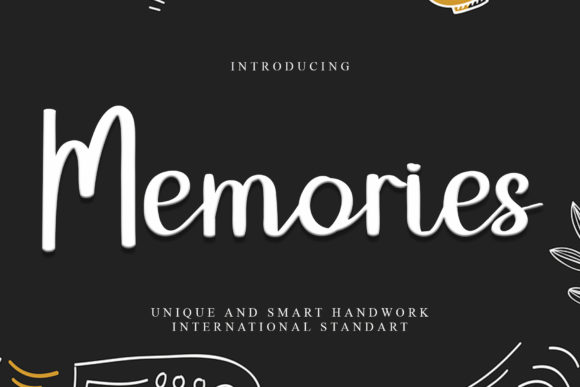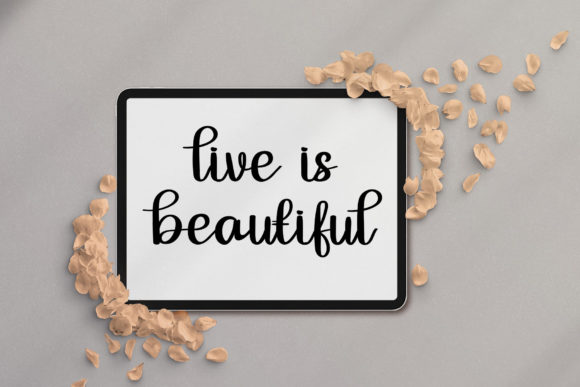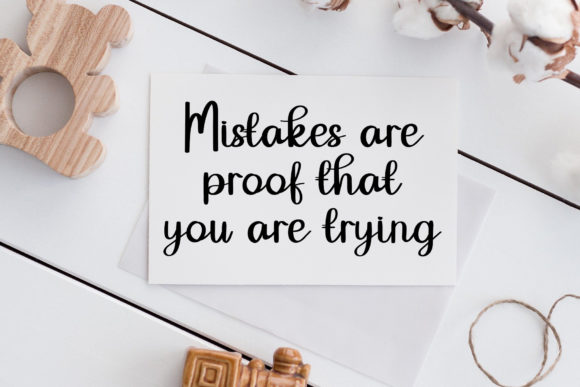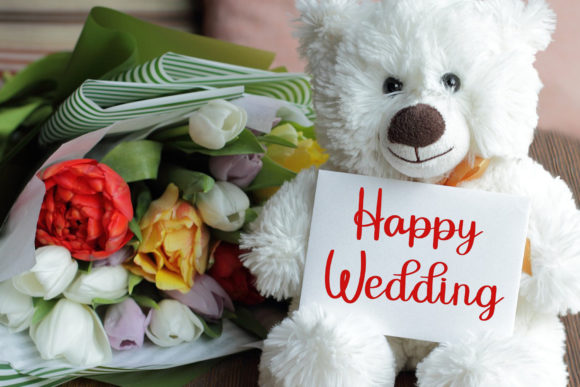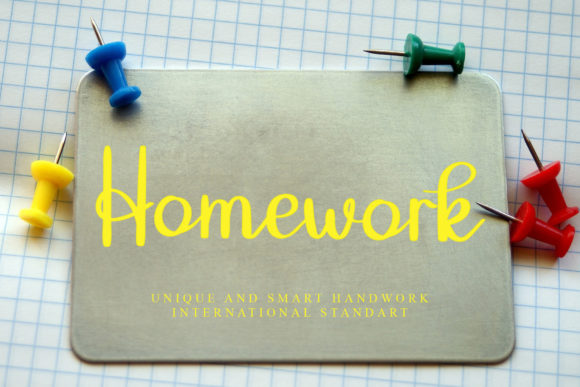
Memories Font
About Memories Font
Memories is a bold and friendly handwritten font. Use this font for with your designs and explore its endless possibilities.